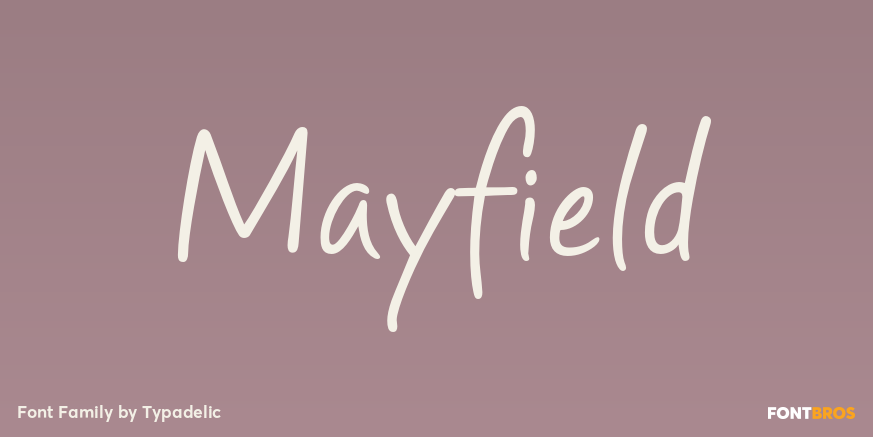
HomeFont BrosHandwrittenMayfield HandwrittenScripts: CasualSans Serif Mayfield FacebookTwitterPinterestWhatsApp 1 of 1 About Mayfield could be anybody\’s handwriting. Very clean and legible.  DOWNLOAD NOW 49 0 People also explored Magnolia Font Easter Egg Font Mr Canfields Brillia Font Febri Keetn Font Dead Fataly Font Ridhans Font Abanane Winter Font November Font Sweet Candy Lollipop Font Minori Font Tags883SMayfield Font Previous articleKorruptNext articleSavigny LEAVE A REPLY Cancel reply Comment: Please enter your comment! Name:* Please enter your name here Email:* You have entered an incorrect email address! Please enter your email address here Website: Save my name, email, and website in this browser for the next time I comment. Unlock Endless Creativity with the FREE September Clipart Huge Bundle (Valued at $700!) Personal Use Free Loving You Personal Use Free Read more Lanilla Personal Use Free Read more BD Nokio Personal Use Free Read more Masker Area Personal Use Free Read more BLOG Transform Your Website: Elevate Your Typography with 7 Best Web Font Generators Are you ready to transform your website's typography from ordinary to extraordinary? Great! Today, we're diving into the world of web font generators, which... Where to Buy American Fonts Online in 2024 Exploring Font Trends Top 7 Google Fonts Alternatives for Faster and Privacy-Friendly Web Design (2025)